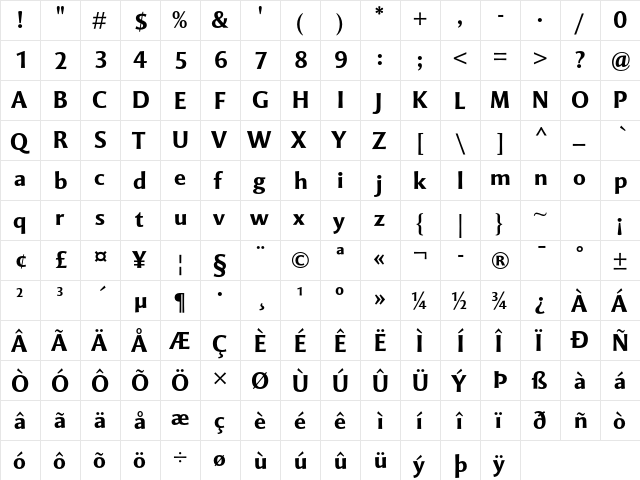
Mentor Sans Std Bold
Bold ·  Michael Harvey and Andy Benedek ·
Design Context for Mentor Sans Std Typeface
Mentor Sans Std is a composed and adaptable typeface that performs quietly and consistently across a wide range of design contexts. The heavy weight commands attention and anchors typographic hierarchies.